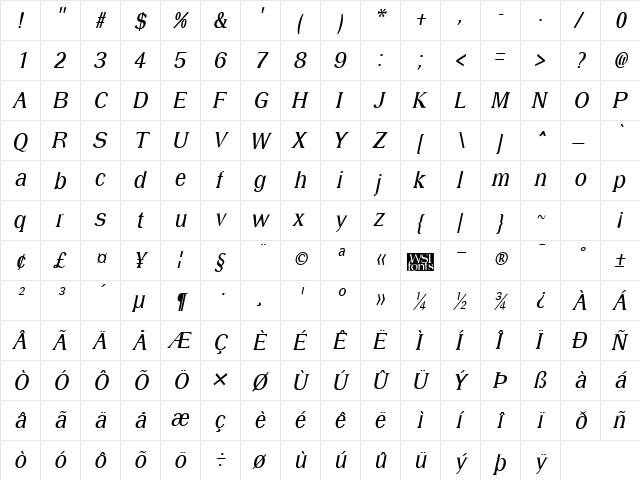
DresselLight Italic Font Preview
Design Context for DresselLight Typeface
DresselLight offers clean, dependable letterforms without strong stylistic allegiance, making it a practical choice for designers who need flexibility. The slanted form adds forward momentum and visual energy. Its slender proportions lend an understated elegance to any composition.
Pro Tip: Try DresselLight for annotation and caption copy alongside an upright companion — the contrast in angle creates a dynamic but ordered typographic system.